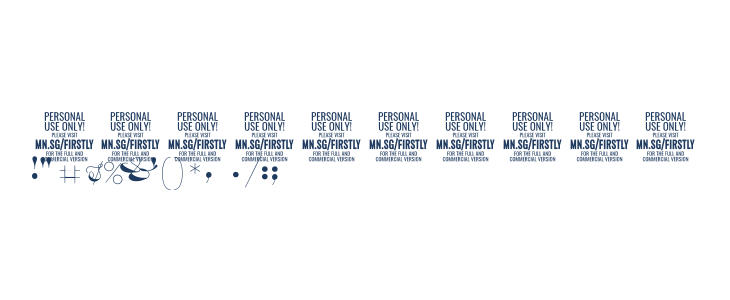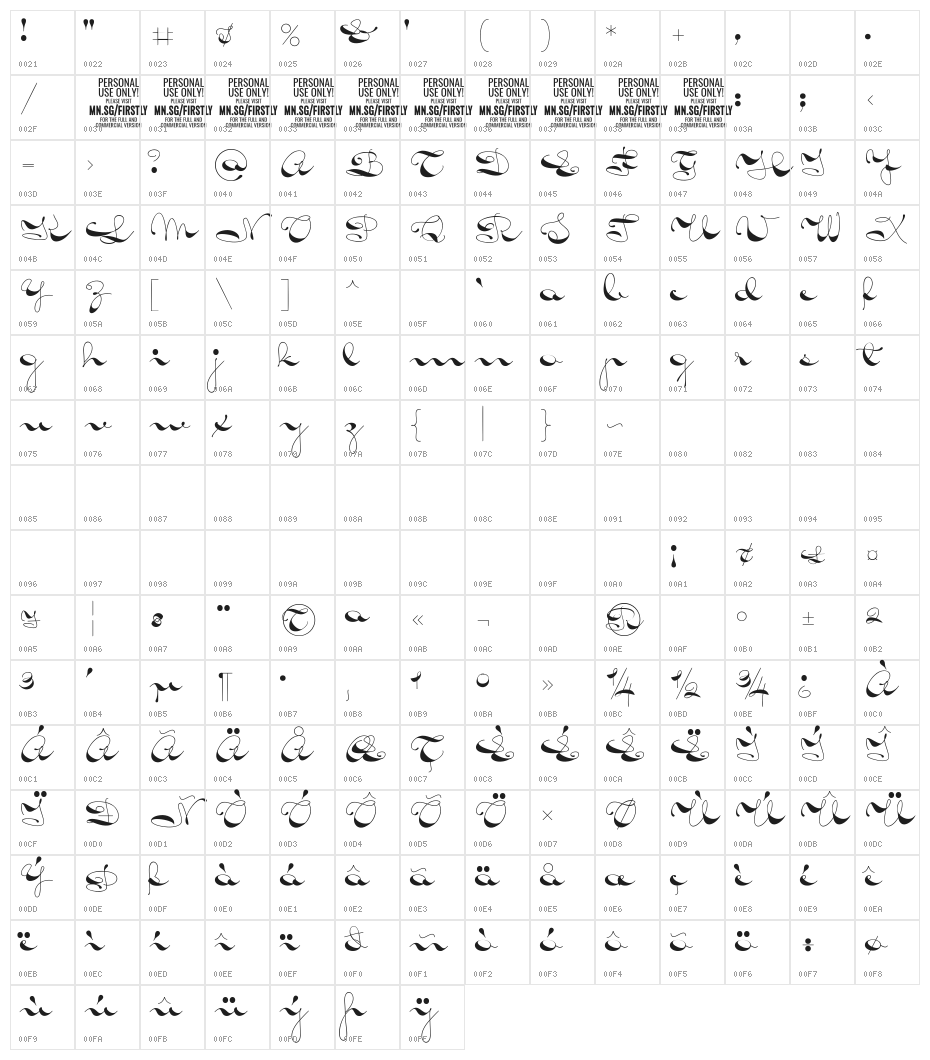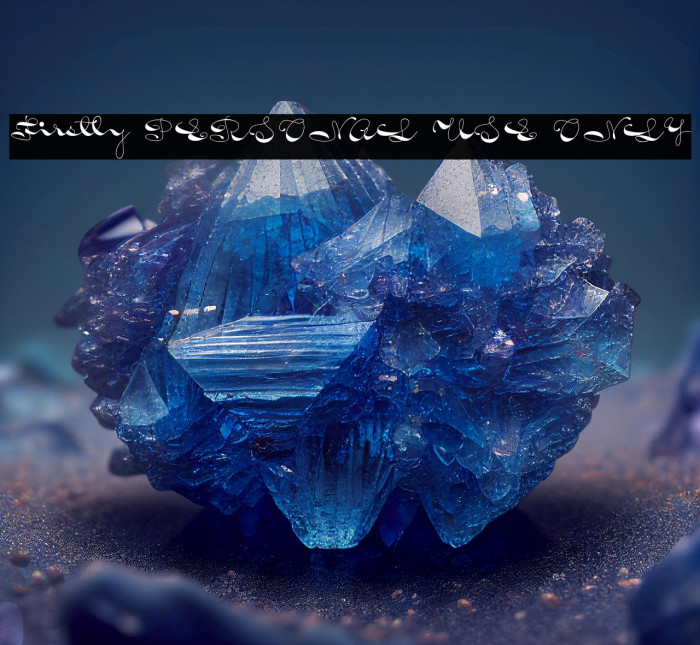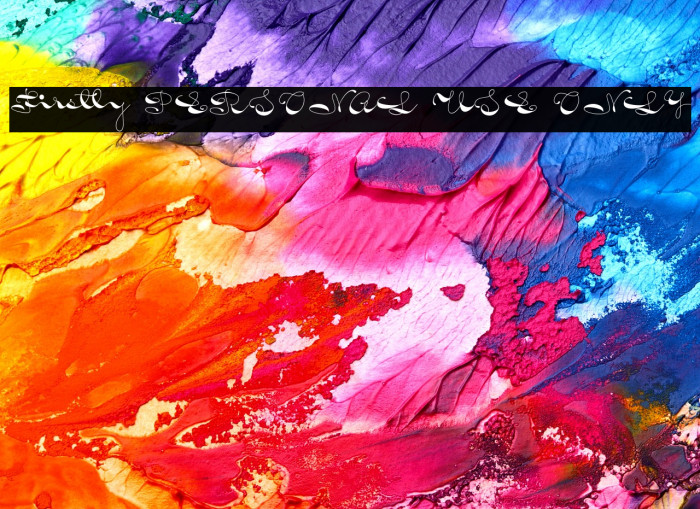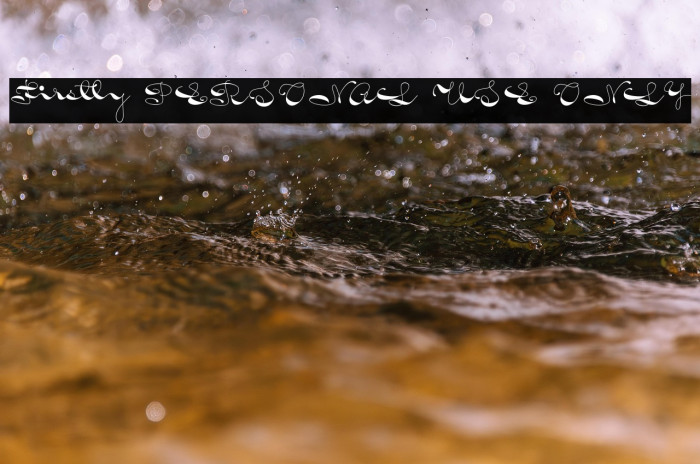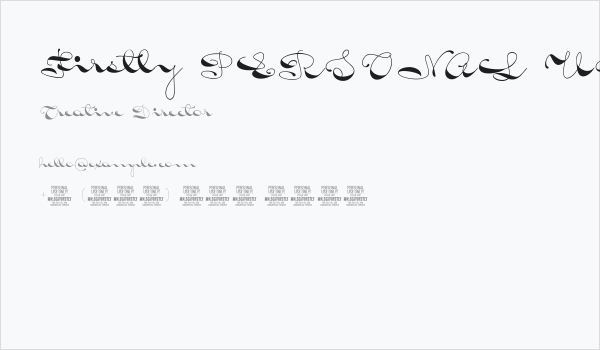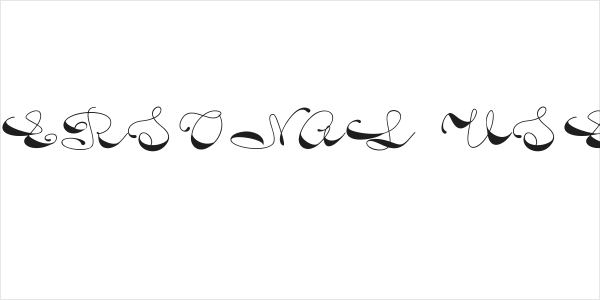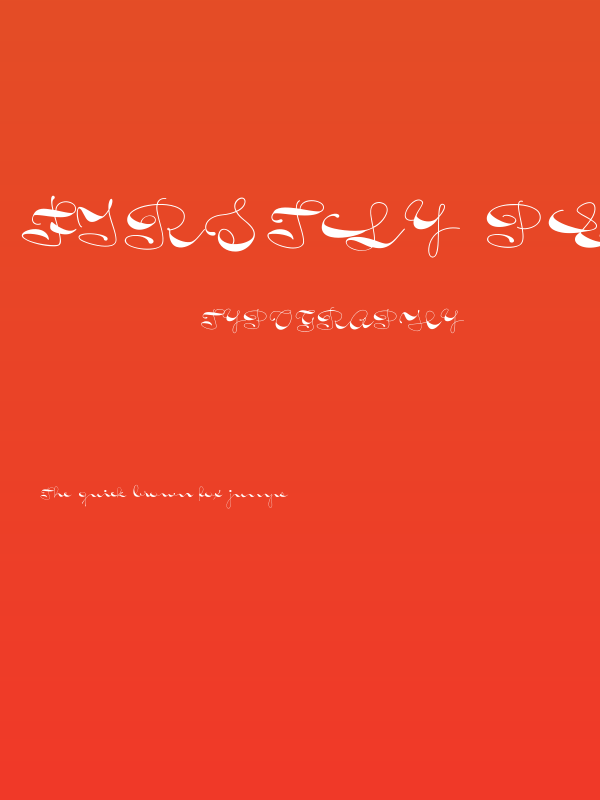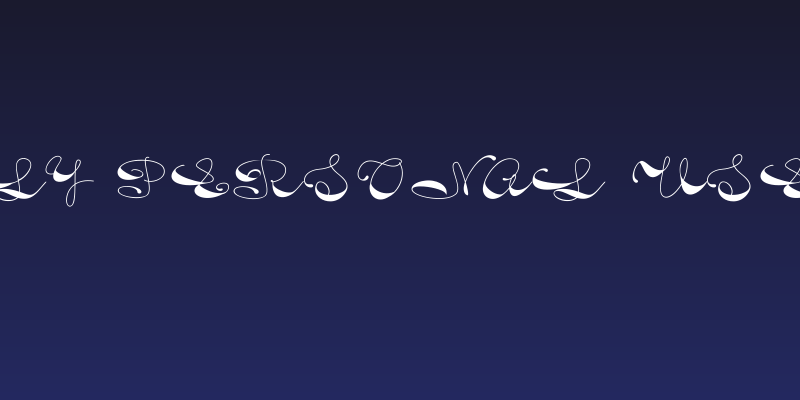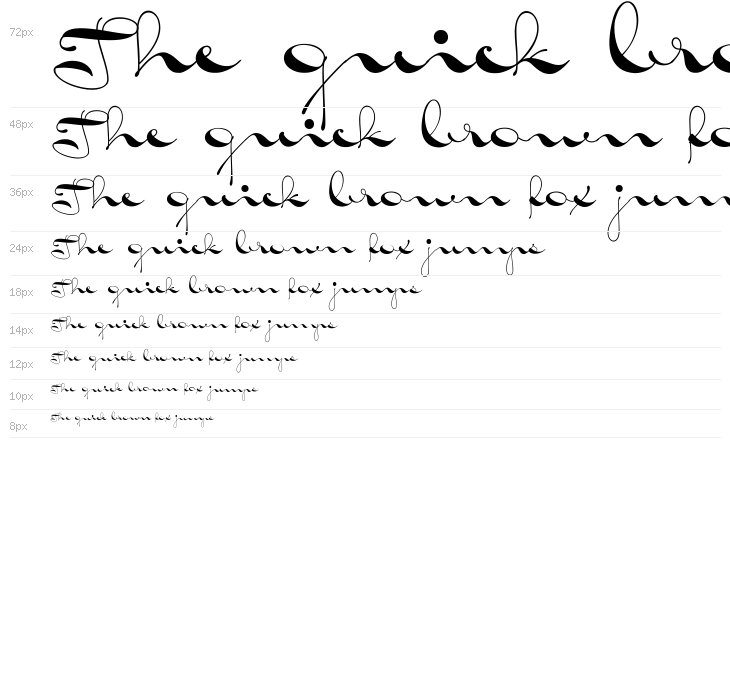
Firstly PERSONAL USE ONLY Font
Firstly PERSONAL USE ONLY Description
This font features an elegant and flowing script style, characterized by its intricate and decorative letterforms. The uppercase letters are highly stylized with elaborate loops and swirls, creating a sense of sophistication and artistry. The lowercase letters maintain a consistent fluidity, with long, sweeping strokes that enhance its cursive nature. The numerals and special characters are designed to match the ornate style of the alphabet, ensuring a cohesive appearance across all characters. This font is ideal for projects that require a touch of elegance and creativity.
| Use Case | Logos, Invitations, Decorative text |
| Proposed Projects | Wedding invitations, luxury branding, artistic posters, and elegant stationery. |